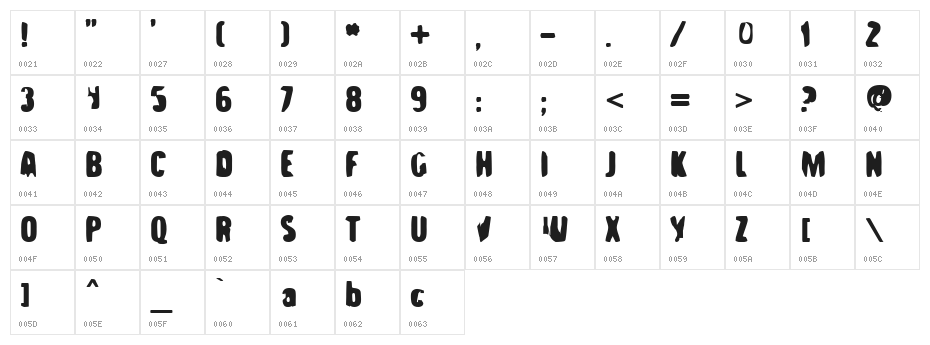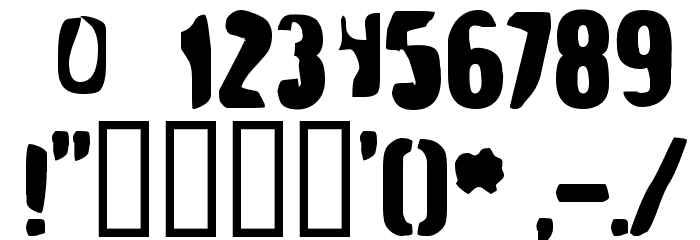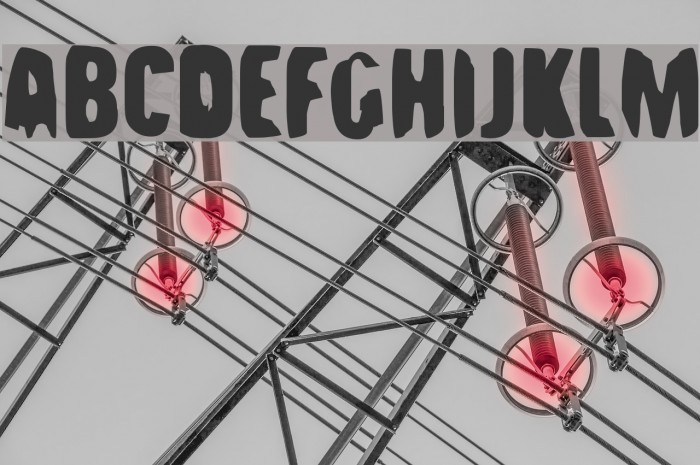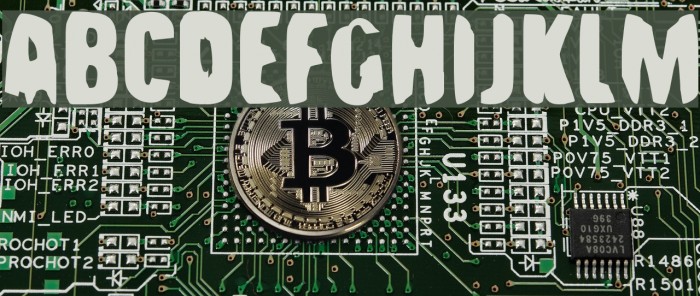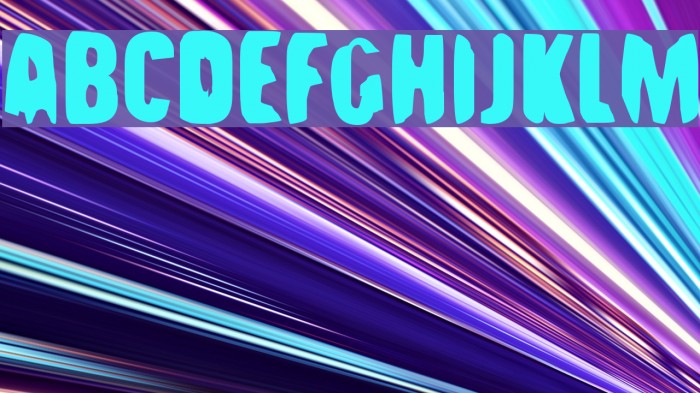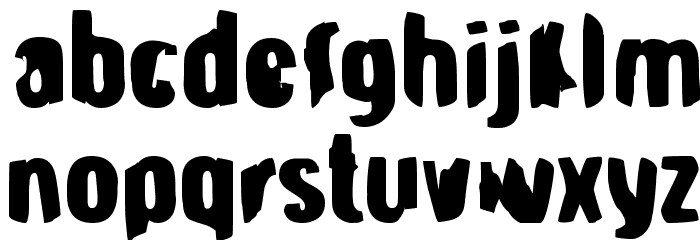
Strange Brew Font
Strange Brew Description
This font features a bold and playful design with irregular, chunky letterforms that create a sense of whimsy and creativity. The characters have a hand-cut appearance, with uneven edges and varying stroke widths that add to its quirky charm. The uppercase and lowercase letters maintain a consistent style, while the numbers and special characters follow the same playful theme. This font is ideal for projects that require a fun and informal touch, making it perfect for children's books, posters, and creative branding.
| Overall Style | Playful, Whimsical |
| Use Case | Headlines, Posters, Branding |
| Proposed Projects | Children's books, playful posters, creative branding, informal invitations. |